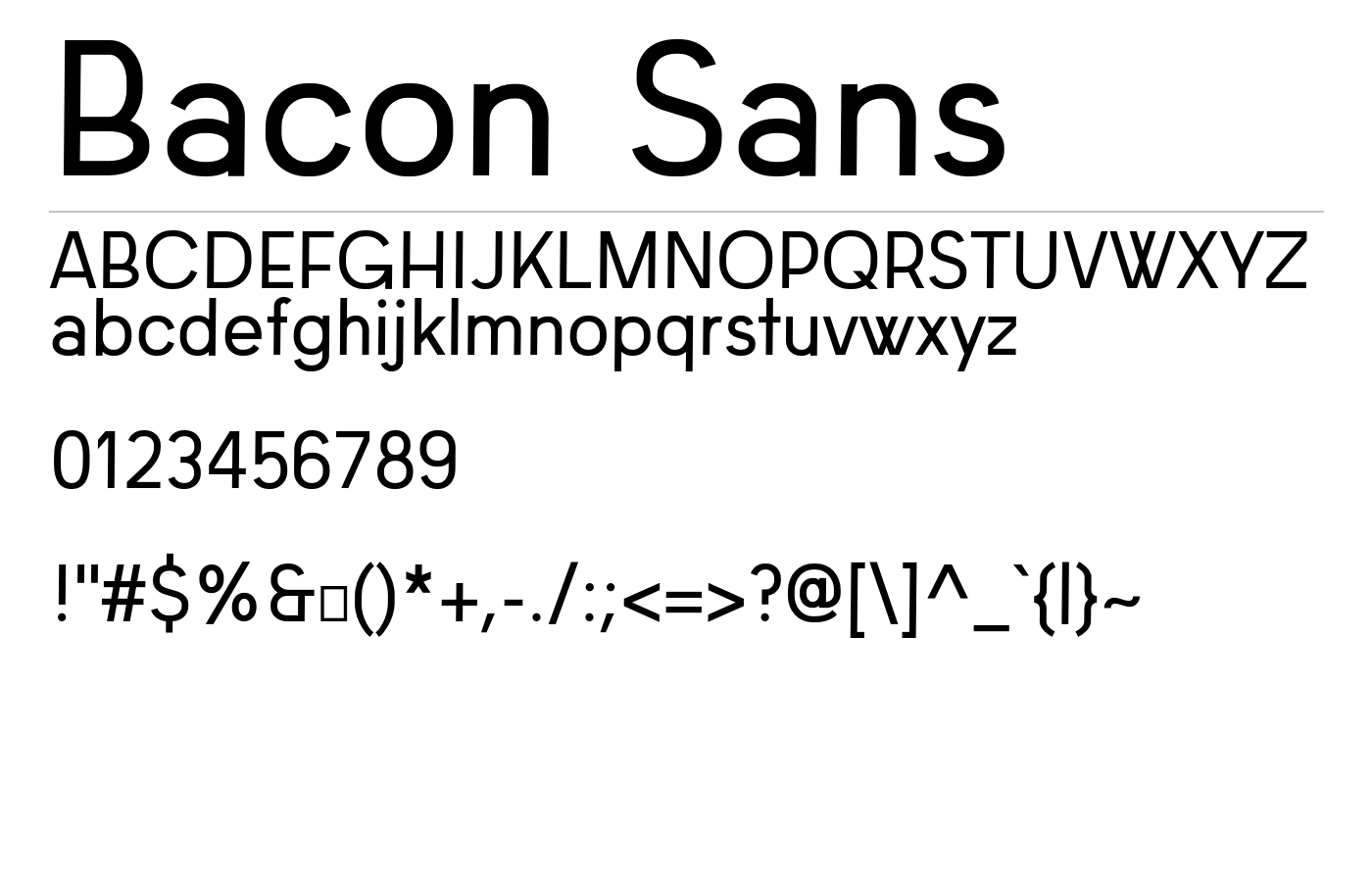
Bacon Sans is a clean and modern sans serif font characterized by its regular weight, slightly condensed width, and medium x-height that enhances readability. Its simple geometric strokes and open letterforms give it a friendly yet professional feel, making it versatile for branding, editorial, and digital use. This font works well for clear, straightforward communication where a contemporary and approachable style is desired.
Bacon Sans Font
About Bacon Sans Font